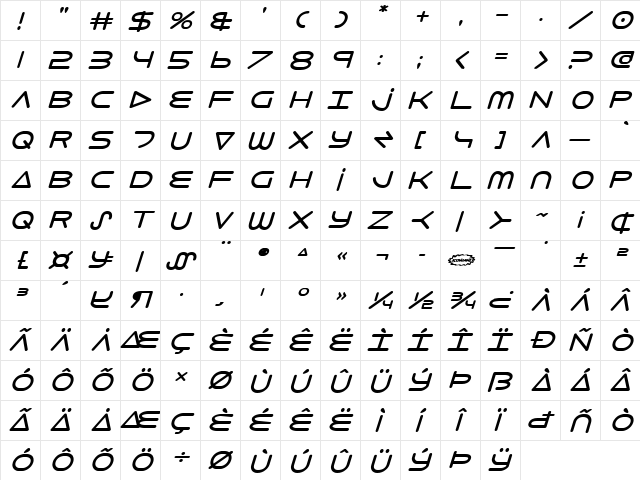
8th Element Bold Italic Font Preview
Design Context for 8th Element Bold Italic Typeface
8th Element Bold Italic takes a measured approach to typography — its balanced proportions and neutral character make it a reliable workhorse for both digital and print work. Its italic angle brings a sense of urgency and motion to the letterforms. The heavy weight commands attention and anchors typographic hierarchies.
Pro Tip: Use 8th Element Bold Italic for emphasis, pull quotes, and subheadings where its slanted energy can add rhythm to the layout.